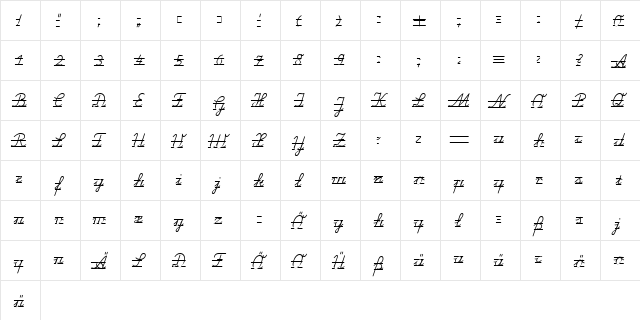
SchulschriftB Regular
Design Context for SchulschriftB Typeface
SchulschriftB is a composed and adaptable typeface that performs quietly and consistently across a wide range of design contexts.